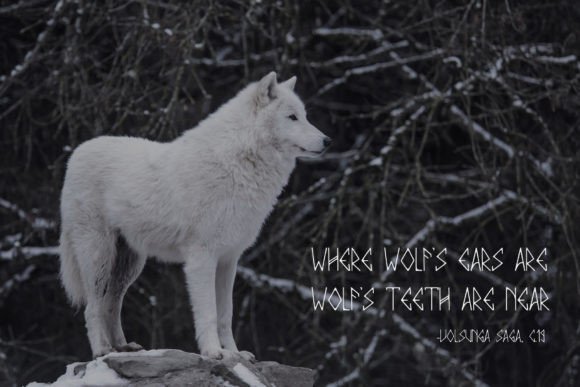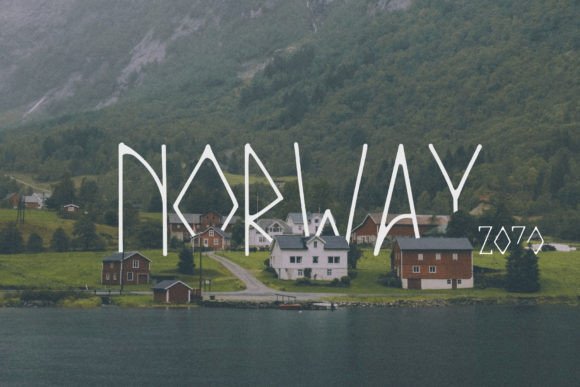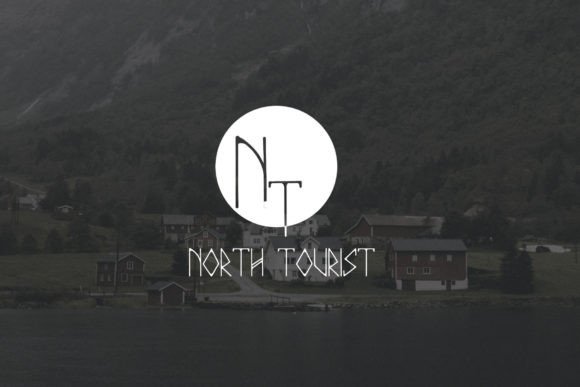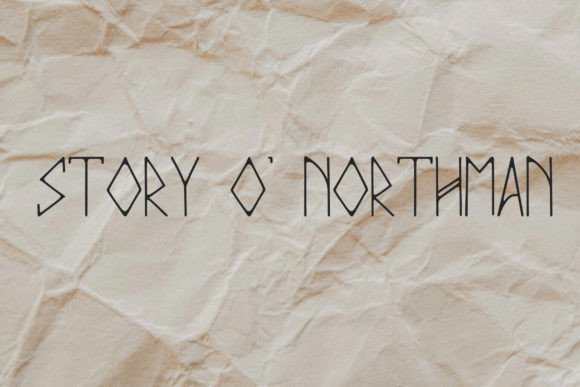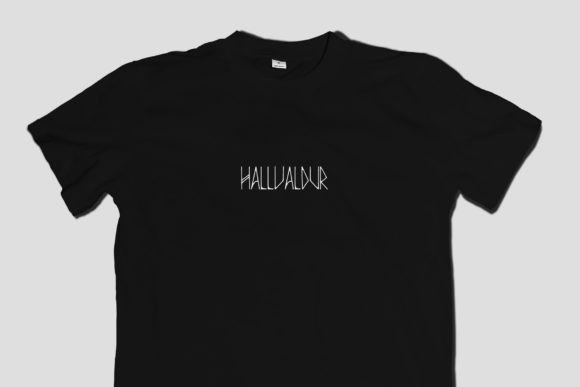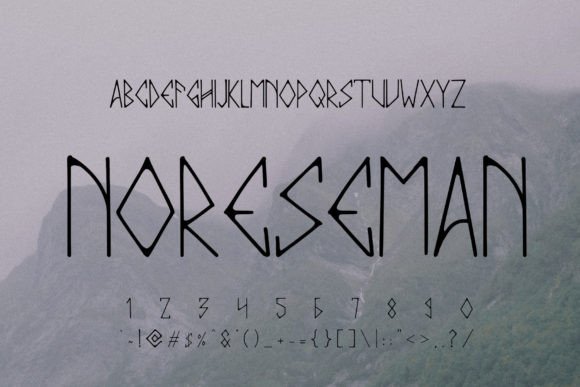
Hammond Font: Elevate Your Design with Elegant Norse Inspiration
In the world of typography, fonts play a crucial role in defining the aesthetic and tone of a design project. For designers and crafters looking to infuse their work with a touch of elegance, modernity, and cultural depth, the Hammond font is an exceptional choice. Inspired by the traditional Norse alphabet, Hammond is a display font that brings a unique and elegant stroke to the table, making it perfect for projects that demand a sophisticated look.
The Inspiration Behind Hammond Font
The Hammond font draws its inspiration from the ancient Norse alphabet, also known as the runic alphabet. This historical alphabet was used by the Germanic peoples of Europe, particularly in Scandinavia and the British Isles, for writing in their languages. The runic alphabet is known for its distinctive characters, which have a mystical and classic appeal. Hammond font captures the essence of these traditional characters but presents them in a modern and refined manner.
Characteristics of Hammond Font
Hammond is not just any ordinary font; it boasts several characteristics that make it stand out:
- Elegant Stroke: The font features a unique and elegant stroke that sets it apart from more conventional fonts. This elegant quality makes it suitable for designs that require a touch of sophistication.
- Modern yet Cultured: While Hammond has a modern appeal, it still retains a cultured and traditional feel, thanks to its Norse inspiration. This blend of modernity and tradition makes it versatile for various design projects.
- Display Font: Hammond is categorized as a display font, meaning it’s designed to make a statement. It’s perfect for headings, titles, and any text that needs to stand out.
Uses of Hammond Font
The versatility of Hammond font makes it suitable for a wide range of design projects, including:
- Branding and Logos: For businesses looking to create a brand identity that exudes elegance and a touch of cultural heritage, Hammond can be a great choice.
- Advertising and Marketing Materials: Whether it’s for print or digital ads, Hammond’s unique and elegant stroke can help grab attention and convey a message of sophistication.
- Packaging Design: For products that want to stand out on the shelves, Hammond can add a touch of elegance and modernity to packaging designs.
- Graphic Design Projects: From brochures and flyers to posters and banners, Hammond can elevate any graphic design project with its distinctive look.
Why Choose Hammond Font?
Choosing Hammond font for your design project comes with several benefits:
- Uniqueness: Hammond offers a unique look that can help your design stand out in a crowded market.
- Versatility: Its blend of modernity and tradition makes it suitable for a wide range of projects and themes.
- Elegance: For designs that require a touch of sophistication and elegance, Hammond is an excellent choice.
Hammond font is a remarkable typeface that brings the elegance of the traditional Norse alphabet to modern design projects. Its unique and elegant stroke, combined with its modern yet cultured appeal, makes it a versatile choice for designers and crafters. Whether you’re working on branding, advertising, packaging, or any other graphic design project, Hammond can help you achieve a sophisticated and standout look. By incorporating Hammond into your design toolkit, you can create projects that are not only visually appealing but also rich in cultural depth and history.